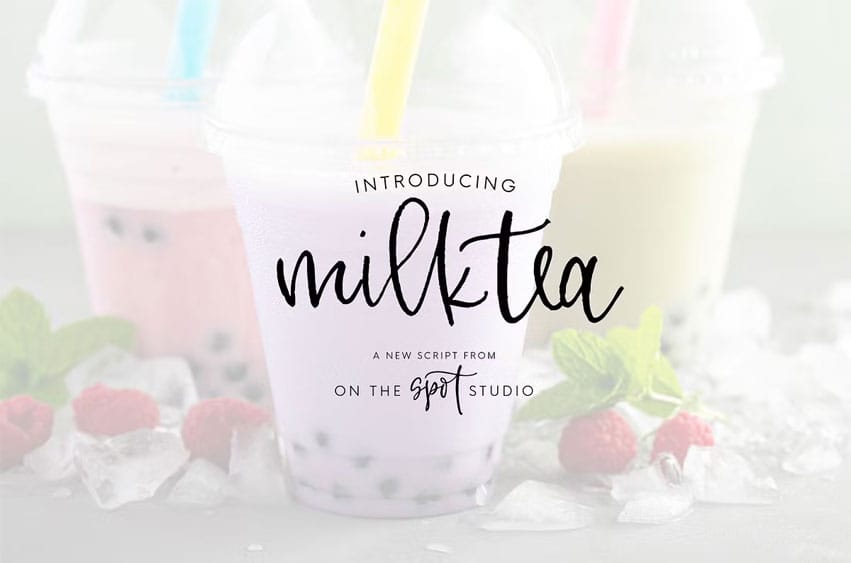
MilkTea Script Font is based loosely on my personal hand lettering, including a lot of alternates and ligatures. You will need open type software (or software that allows you to access your glyphs or character map) in order to utilize MilkTea to its fullest!